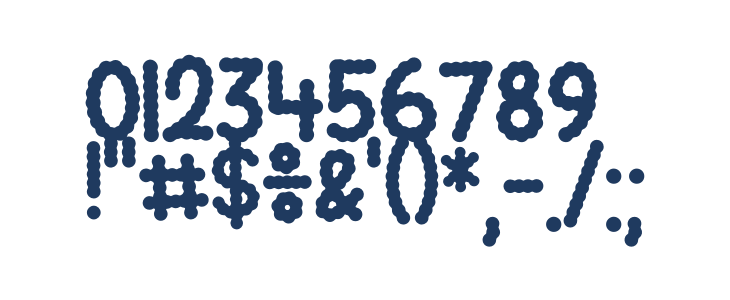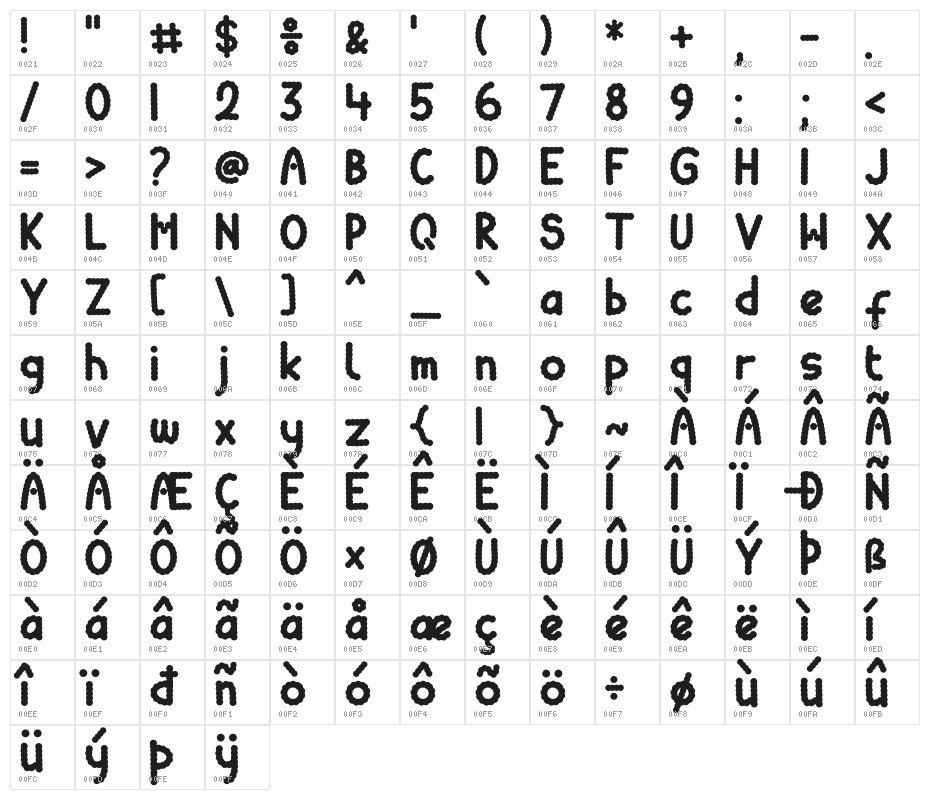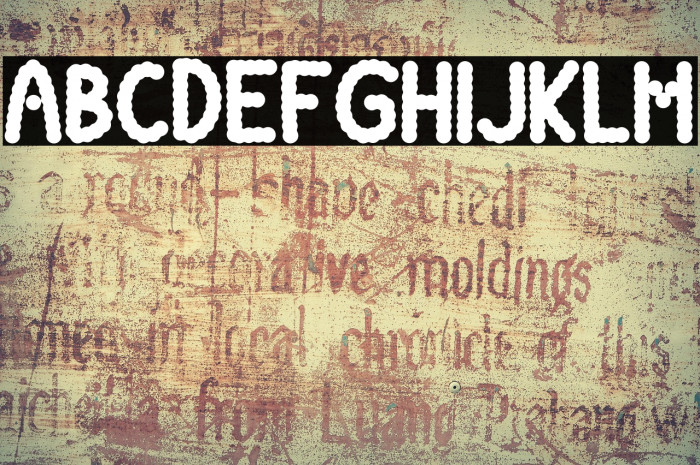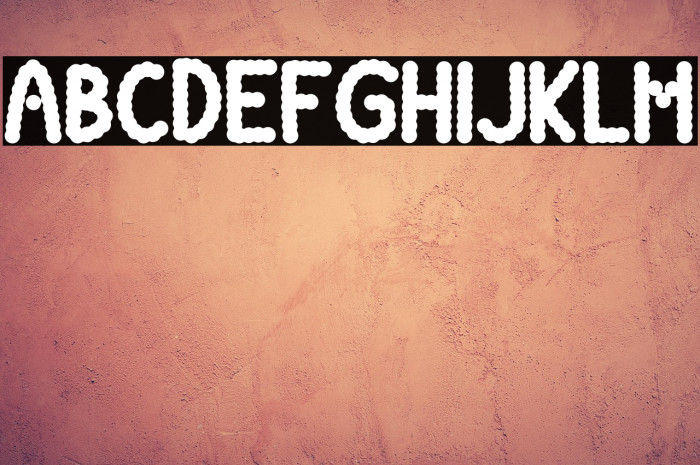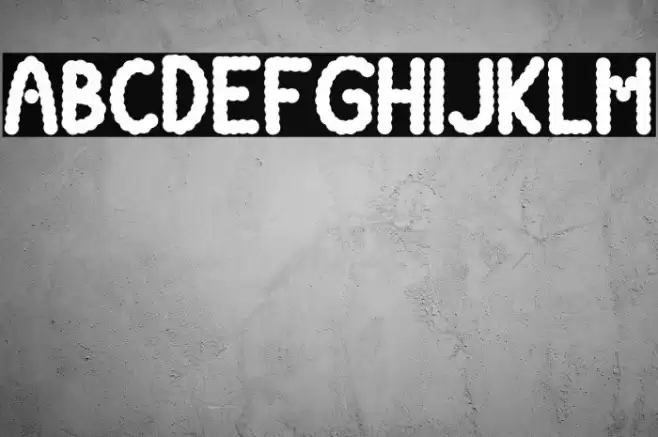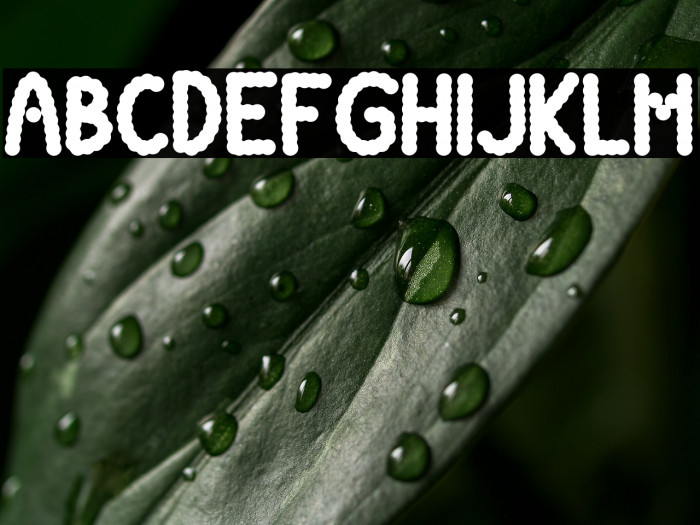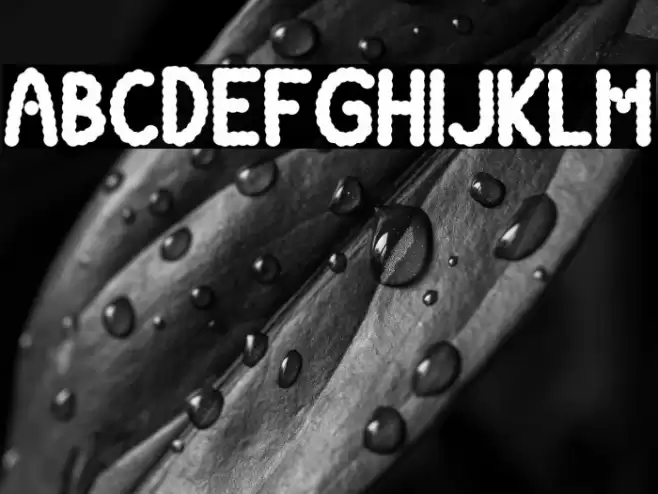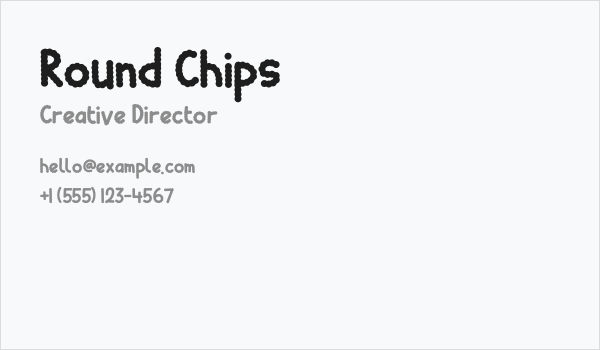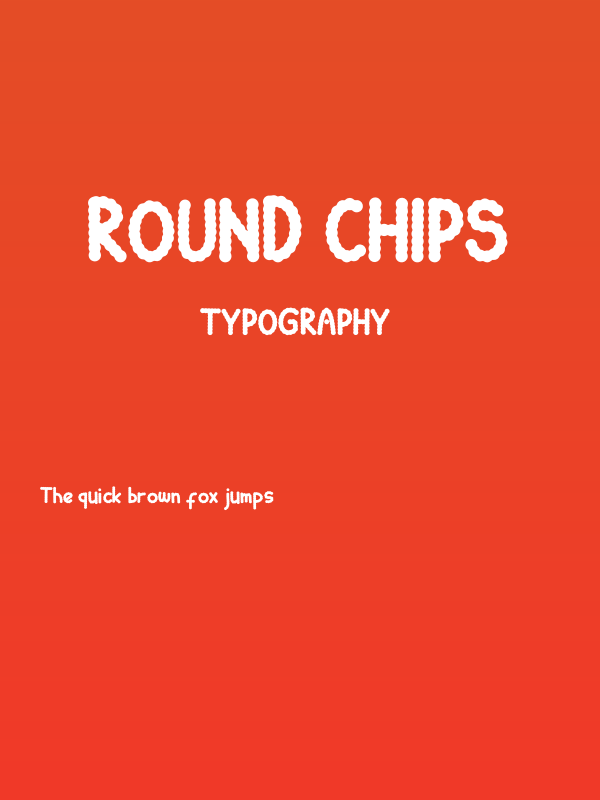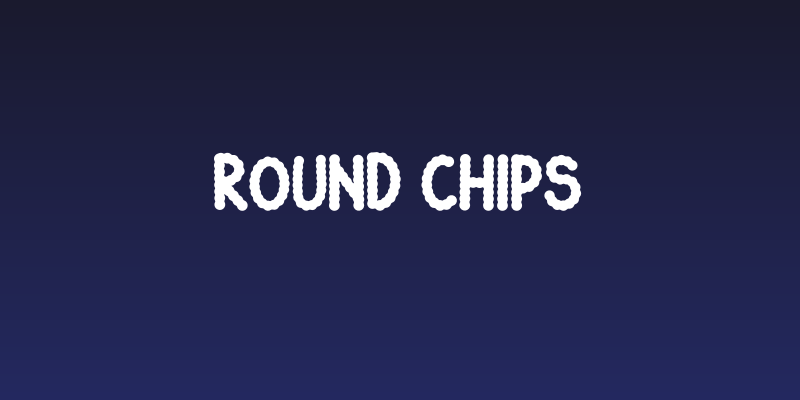
Round Chips Font
Round Chips Description
This playful and bold font features characters composed of rounded, bubble-like shapes that give it a unique and whimsical appearance. The letters are evenly spaced, with a consistent thickness that adds to its boldness. The font's design is reminiscent of playful, childlike themes, making it ideal for projects that require a fun and approachable aesthetic. Its rounded edges and uniform stroke width contribute to a cohesive and visually appealing style that stands out in any design.